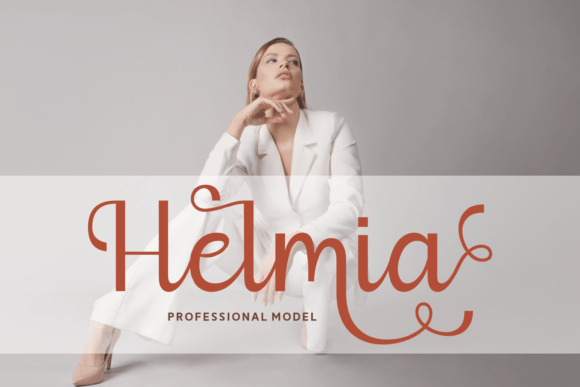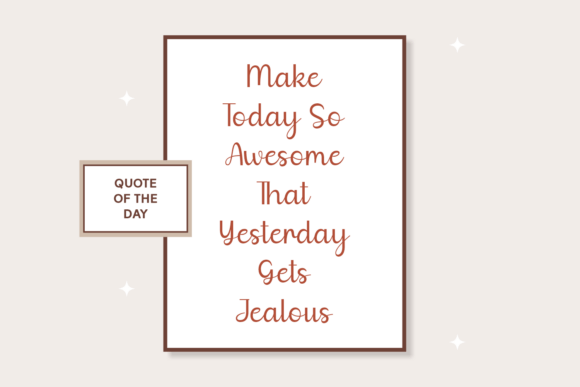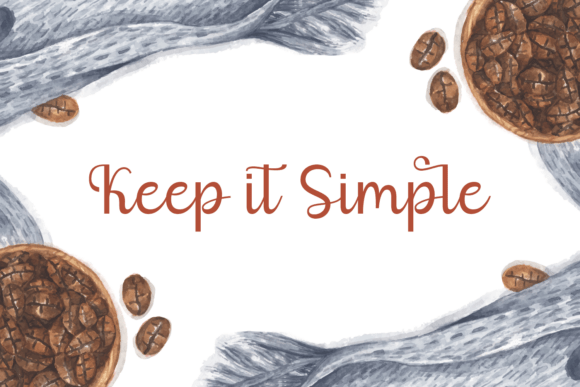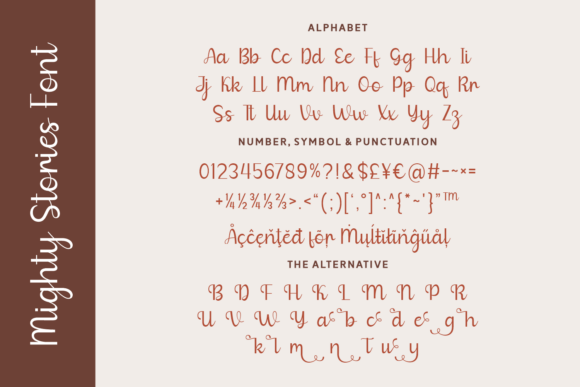
Introduction to Mighty Stories Font
Mighty Stories is a charming modern script font with whimsical curls and a clean finish.
It blends playful elegance with a vintage feel, making it ideal for branding, quotes, or editorial use Each letter is carefully designed to evoke storytelling and creativity.
Key Features of Mighty Stories Font